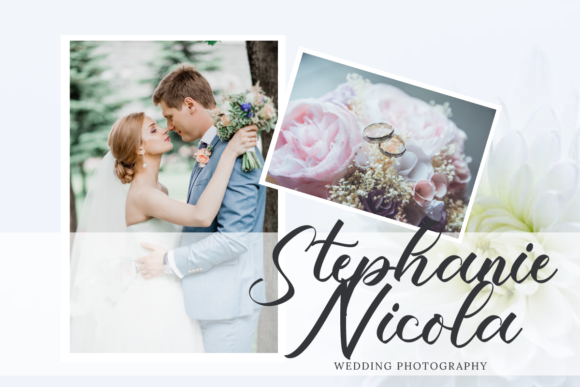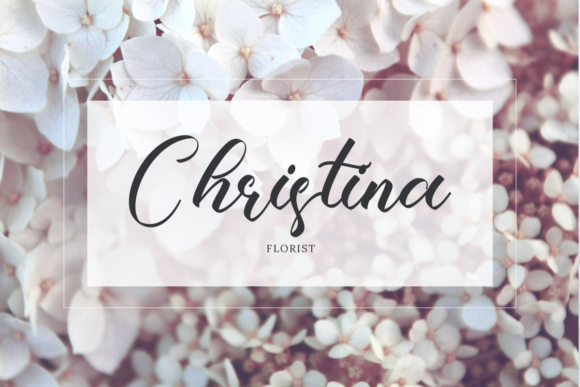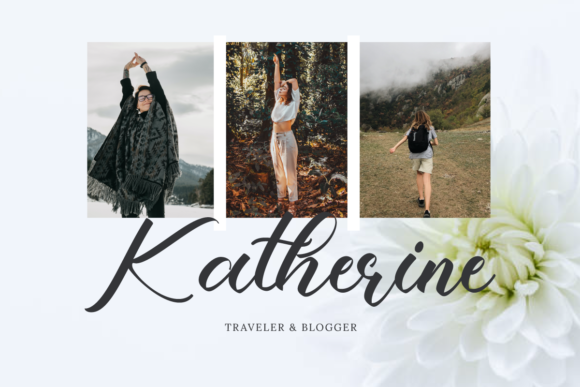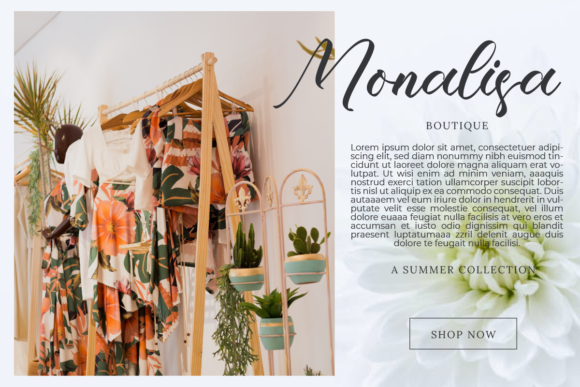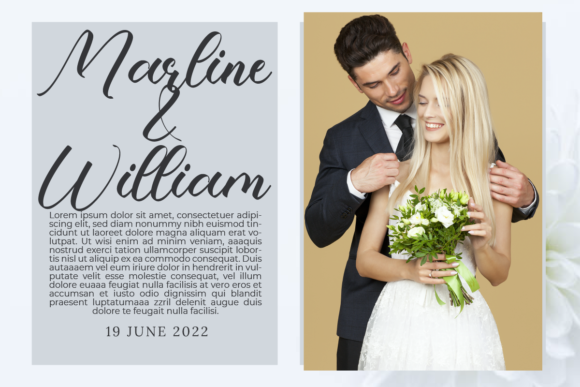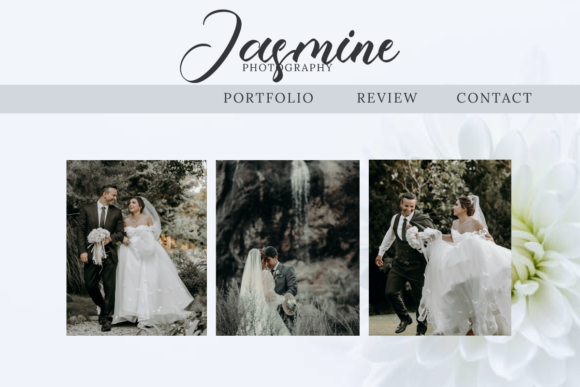
The Elusive Font: My Encounter with Cadence Audrina
I’ll never forget the time I was working on a wedding invitation project, and my client asked for a font that was ” elegant, yet playful, and totally Instagram-worthy.” I scoured the internet, tried out dozens of fonts, but nothing seemed quite right. That was until I stumbled upon Cadence Audrina. This stunning script font swept me off my feet with its thin lettering and graceful curves. In this article, I’ll share my experience with Cadence Audrina, its features, and how to make the most of it in your designs.
An Honest Review of Cadence Audrina
- ✨ Exquisite style: Cadence Audrina’s slender lines and elegant curves make it perfect for creating beautiful wedding invitations, stationery art, and social media posts.
- ✅ Highly versatile: This font can be used for a wide range of projects, from formal events to casual designs.
- 💫 Easy on the eyes: The font’s clarity and readability make it perfect for both digital and print designs.
While Cadence Audrina is an amazing font, there are a few things to keep in mind:
- 🤔 Legibility at small sizes: As with many script fonts, Cadence Audrina can be a bit tricky to read at very small sizes. Make sure to test it out at different sizes to ensure it’s legible for your project.
- ⚠️ Overuse of swashes: While the font’s swashes are beautiful, overusing them can make your design look cluttered. Use them sparingly to add a touch of elegance.
The Story Behind Cadence Audrina
Cadence Audrina was designed by a talented typographer who wanted to create a font that exuded elegance and sophistication. Inspired by classic calligraphy, the designer carefully crafted each letter to ensure a smooth, flowing script that would capture the hearts of designers and crafters alike.
Q: What is Cadence Audrina?
A: Cadence Audrina is a thin lettered and graceful script font perfect for creating beautiful wedding invitations, stationery art, social media posts, and more.
Q: Is Cadence Audrina easy to read?
A: Yes, Cadence Audrina is generally easy to read, especially at larger sizes. However, as with any script font, it may be less legible at very small sizes.